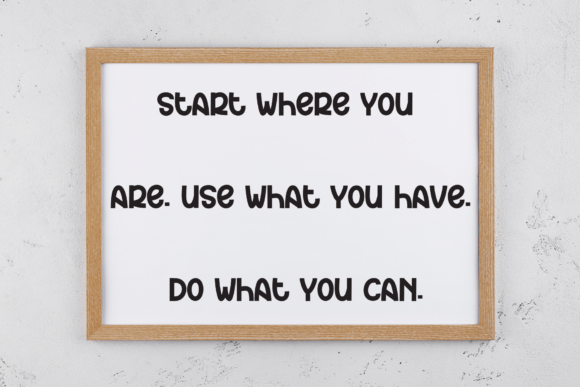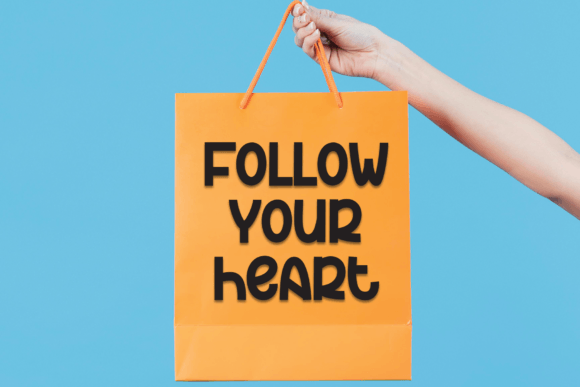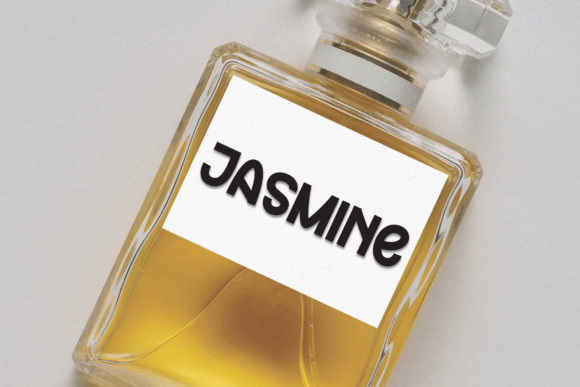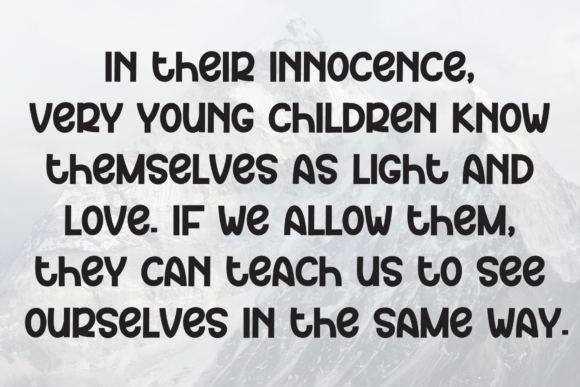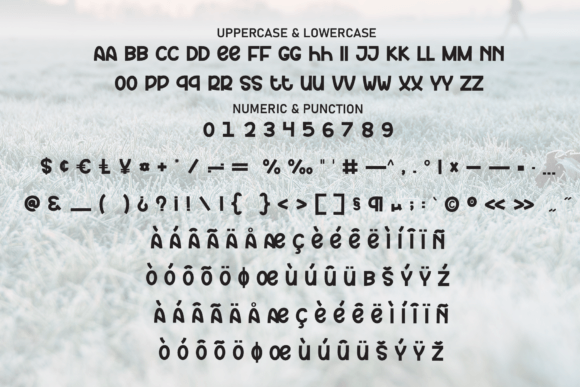
Frosty Morning Font Font – Free Download
Introduction to Frosty Morning Font Font
Fonts play a crucial role in design, and the Frosty Morning Font font is a typeface that brings both character and versatility to any project. Whether you’re working on a branding project, a website, or a print design, the Frosty Morning Font font offers a unique style that can elevate your work.
Introducing an endearing handwritten display font; this font exudes charm and friendliness.
A delightful mix of cute and playful, itβs perfect for adding a light-hearted touch to your designs Whether youβre crafting romantic wedding invitations or personable greeting cards, this font helps you express creativity with a delightful twist.
Key Features of Frosty Morning Font Font
Why Choose Frosty Morning Font Font?
The Frosty Morning Font font is more than just a typeface β it’s a design tool that helps you communicate your message with style and clarity. Its unique character set and versatile design make it suitable for a wide range of applications, from elegant invitations to bold headlines.
With its carefully crafted letterforms and balanced proportions, the Frosty Morning Font font ensures readability and visual appeal across all mediums.
What makes Frosty Morning Font font special?
The Frosty Morning Font font stands out with its unique design, exceptional readability, and versatility across various design applications.